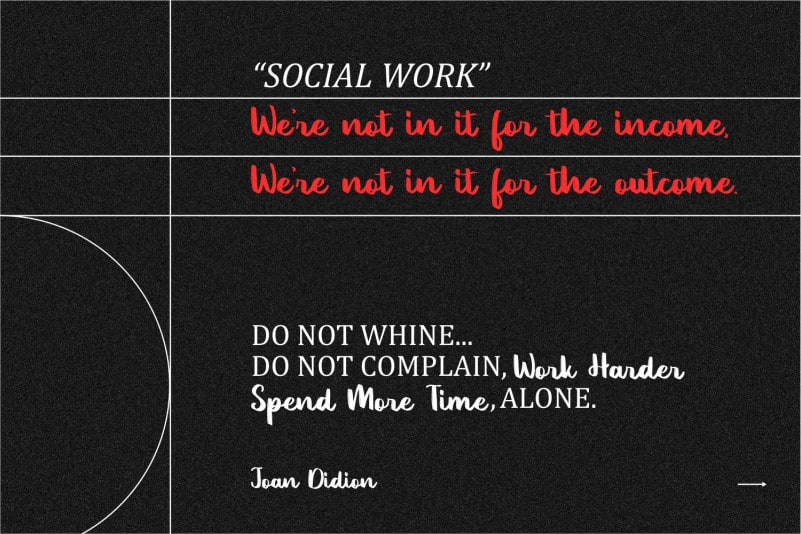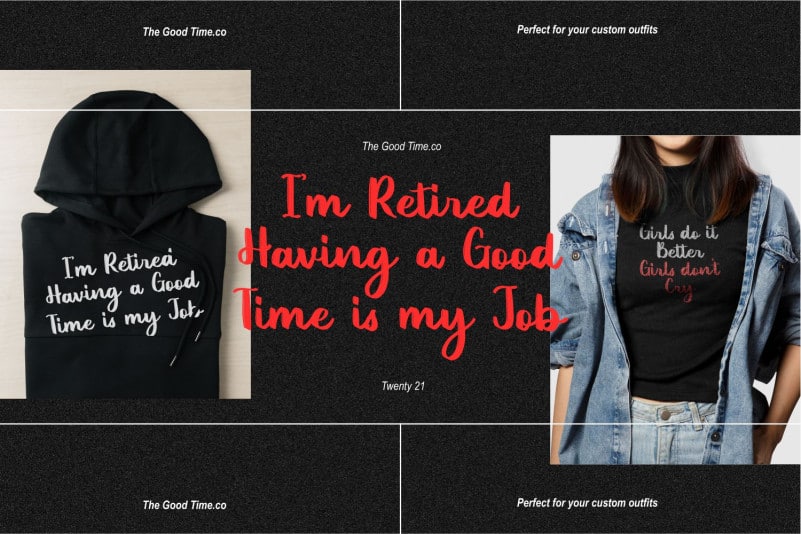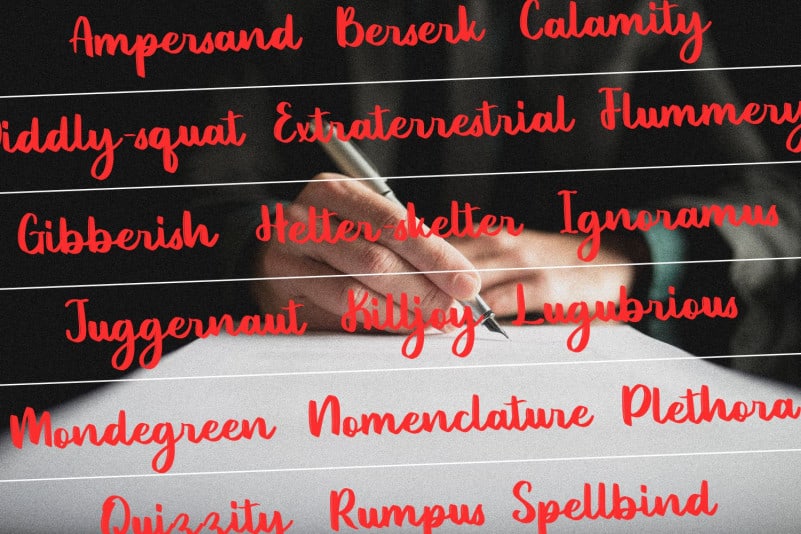
Omniface Script Font
Omniface Script Font is a cute and well balanced paint brushed script font. Its distinct and well rounded letters make this font a masterpiece. Fall in love with its incredibly versatile style and use it to create spectacular designs!